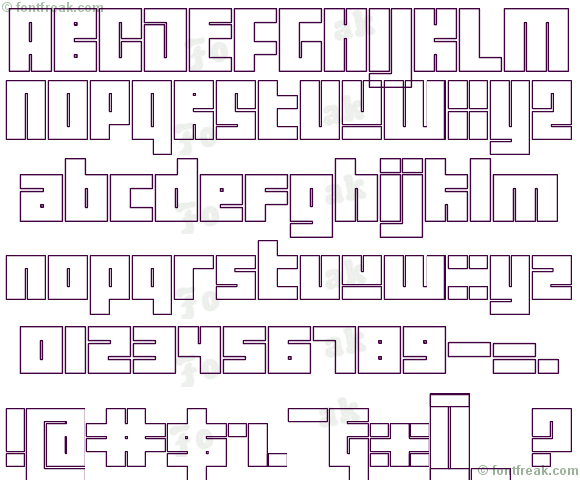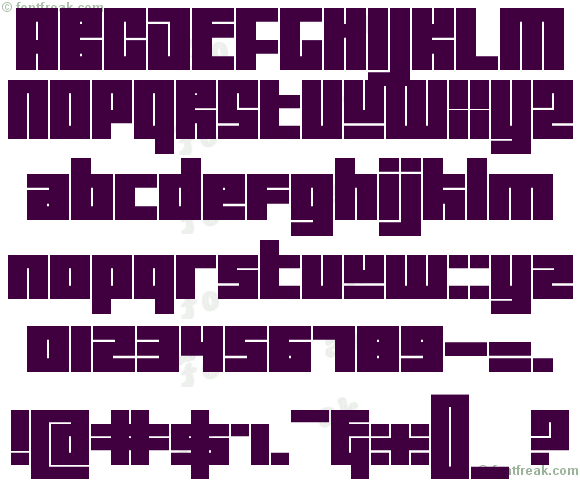
Tutor Outline
Tutor
About Tutor Outline
Tutor Outline is a distinctive display font designed by the kmzero font foundry. This freeware font showcases a unique outline style that makes it stand out in various design applications. Characterized by its bold stroke weight, Tutor Outline features clean lines and a geometric form that offers a modern yet playful aesthetic. The absence of fills allows the underlying design to shine through, creating a striking visual impact that can capture attention effortlessly. The spacing between characters is well-balanced, enhancing readability while maintaining an engaging appearance.
This font is particularly well-suited for a variety of creative projects. Its eye-catching design makes it an excellent choice for wedding invitations, where elegance and uniqueness are paramount. Additionally, Tutor Outline can be effectively utilized in movie posters to convey a sense of drama and excitement, drawing viewers in with its bold outlines. For restaurant menus, this font offers a contemporary appeal that can enhance the dining experience, while also fitting seamlessly into branding materials for small businesses seeking an innovative touch. Graphic designers and content creators will find Tutor Outline to be a versatile tool in their design arsenal.
What sets Tutor Outline apart is its ability to blend modernity with a hint of whimsy, making it a versatile choice for various applications. Its distinctive outline style adds a layer of creativity that can transform simple text into an engaging visual experience, ensuring that any project using this font will stand out in a crowded marketplace.